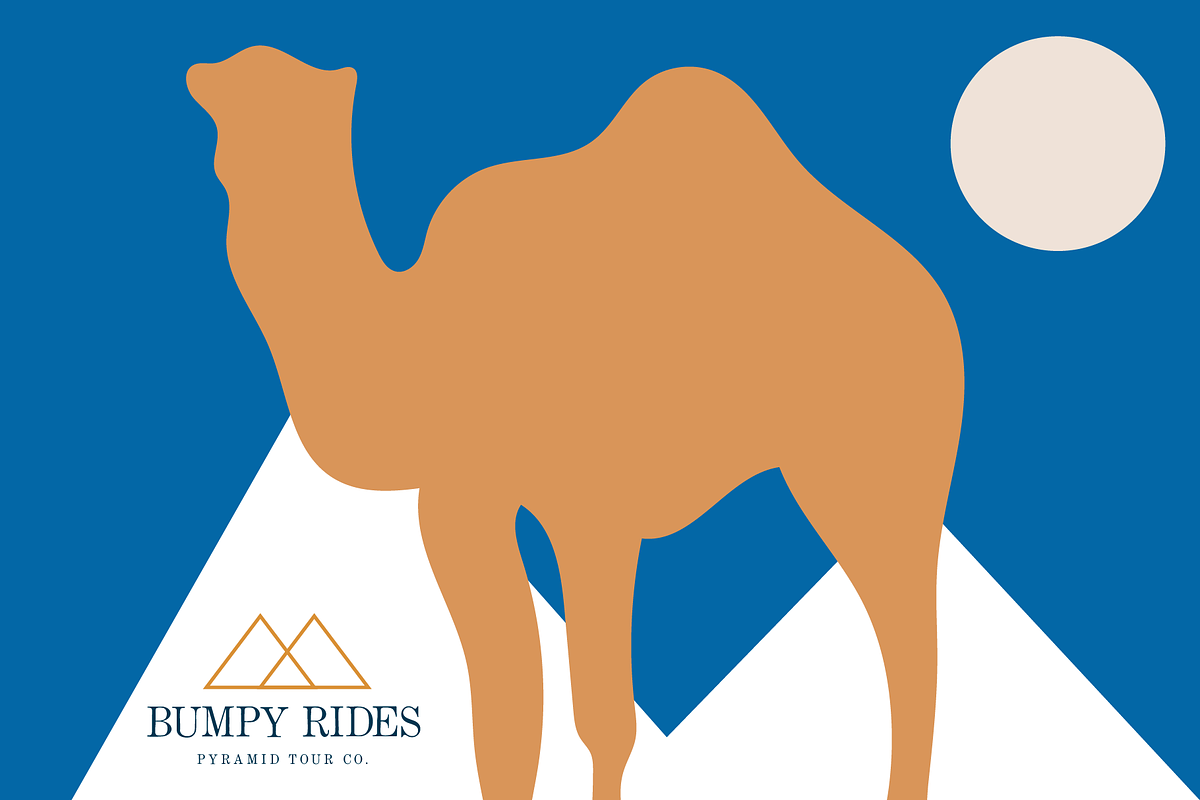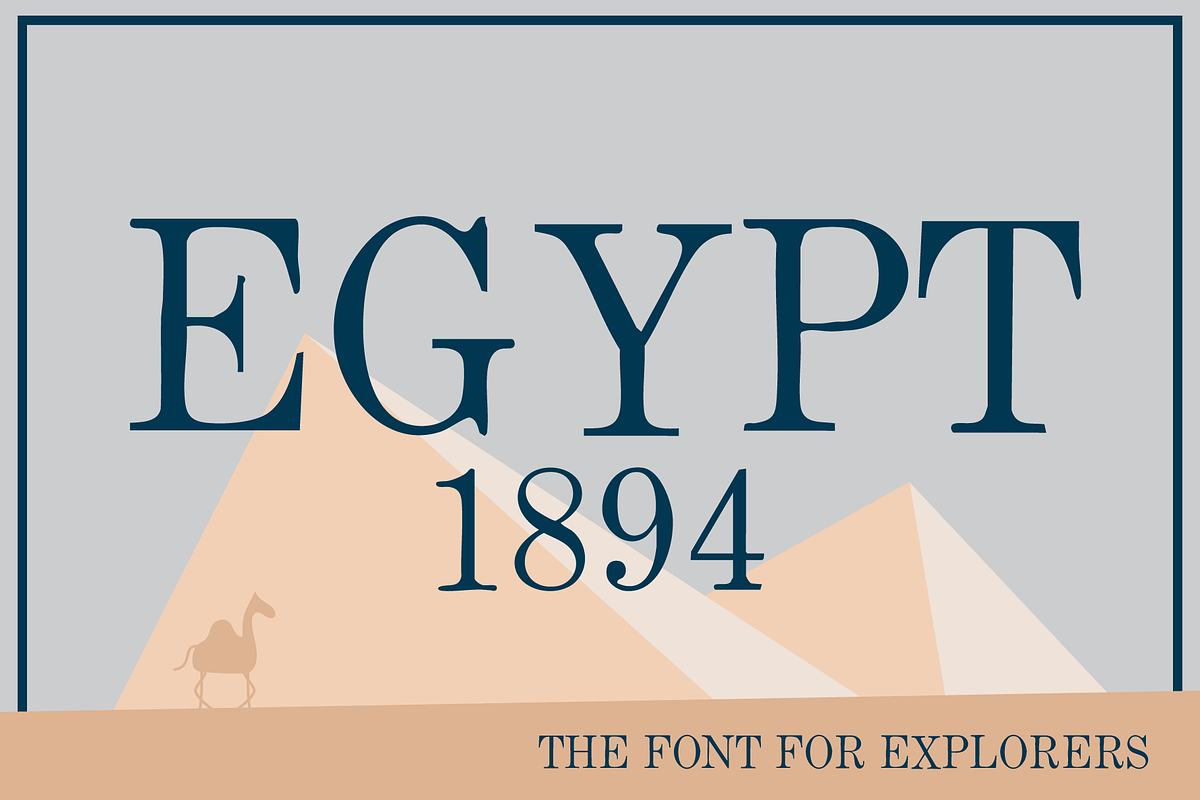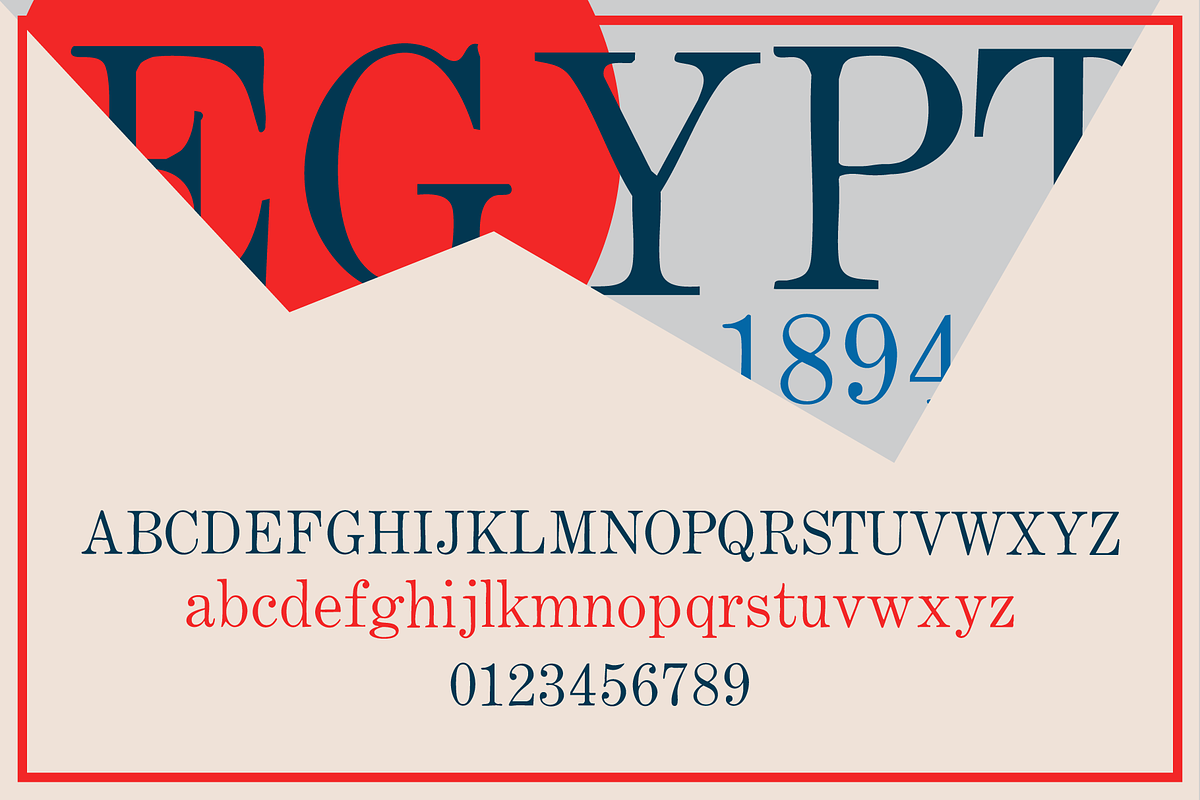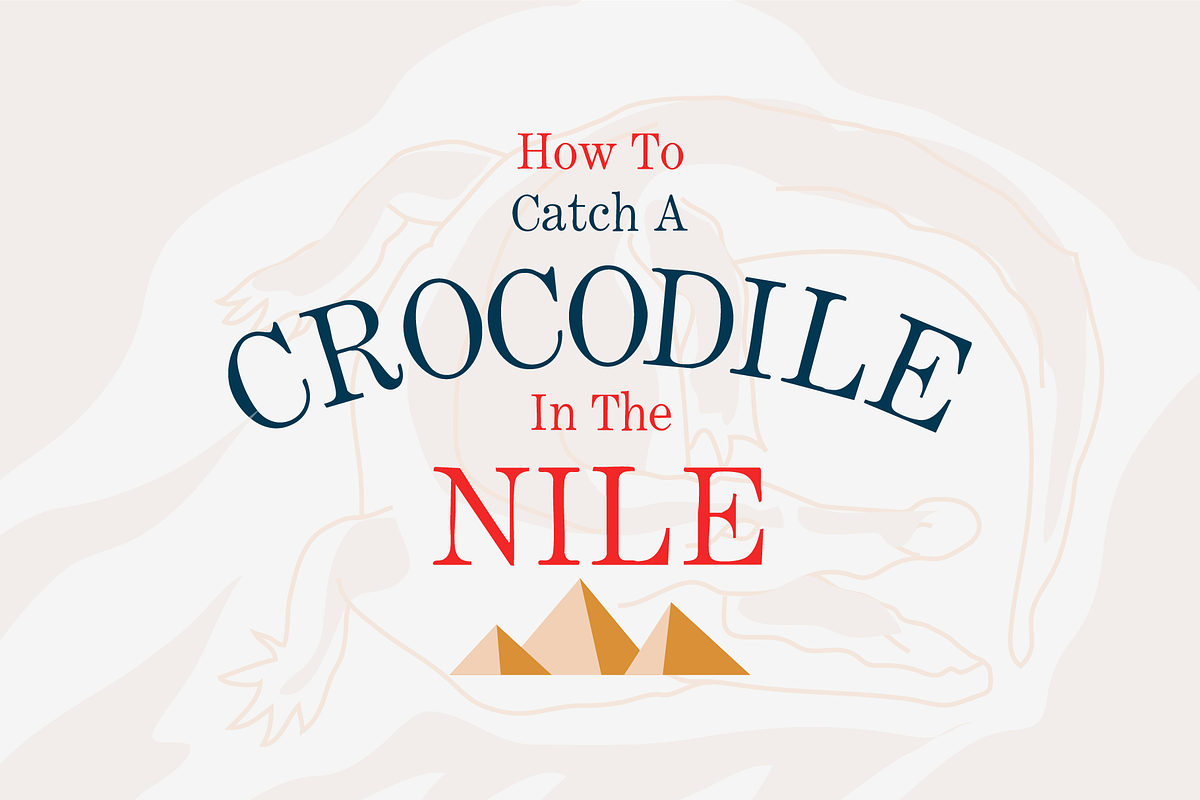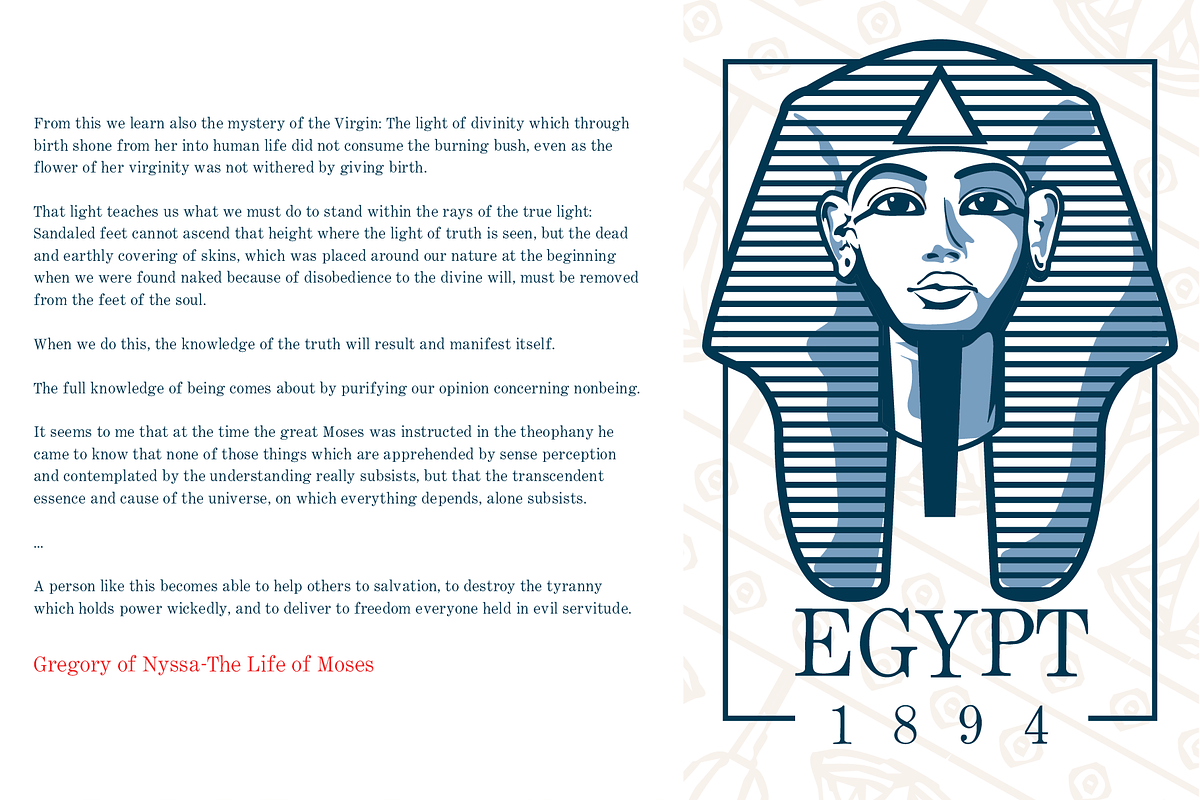
Egypt 1894 Antique Typewriter Font
I was looking for a font that had just a slight personality... one that makes the reader think "This FEELS refined... but... ehhh, I also feel like I'm in a different age". That's how Egypt 1894 came about. I found this vintage typewriter feeling typeface in an OLD book of typefaces - I scanned it in, refined it and tweaked it a little and, BAM... it was birthed into my work!
This heritage font is perfect for giving your design assets a vintage, antique vibe.
Use it for branding, posters and packaging when you want the world to be just a little more enchanted.